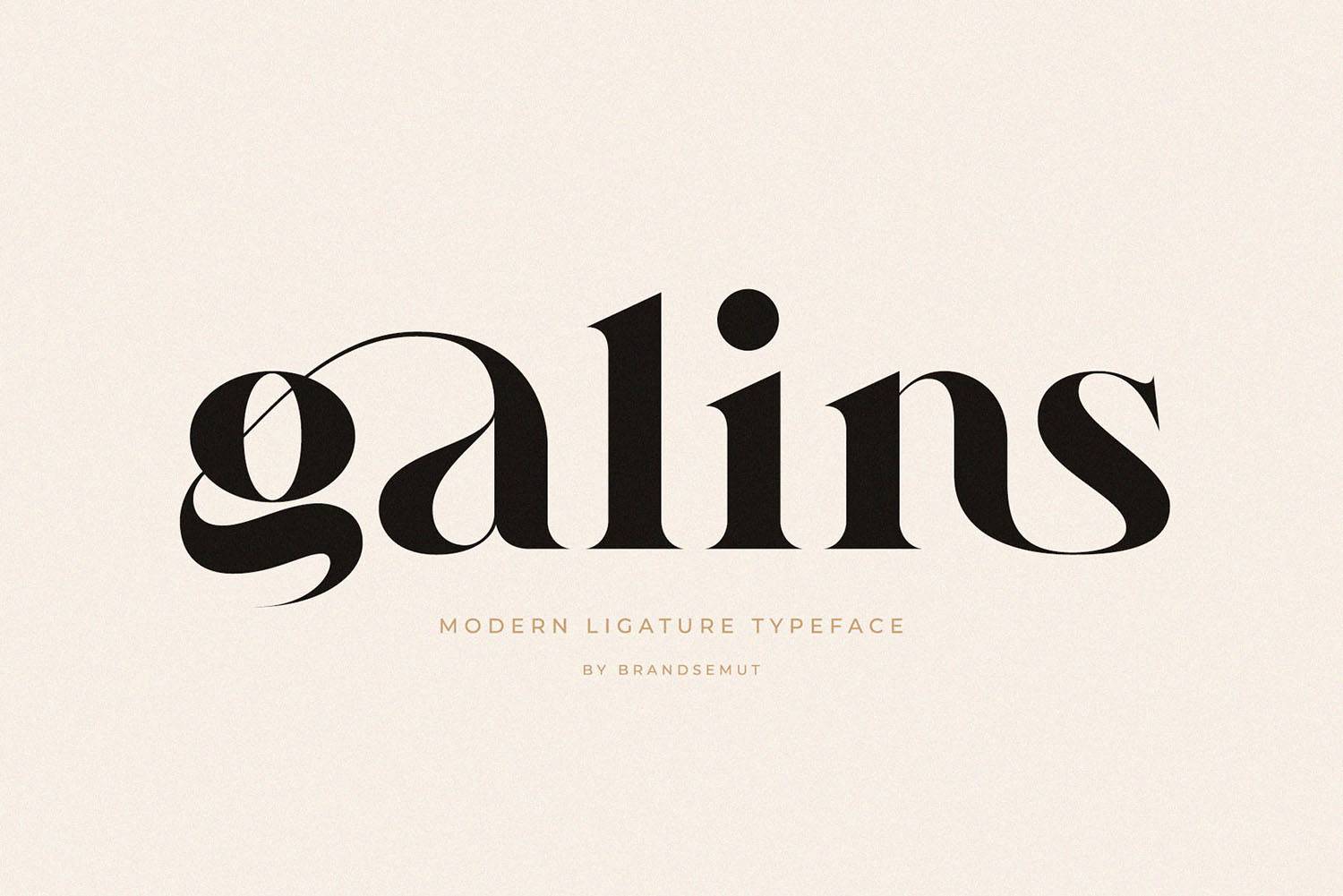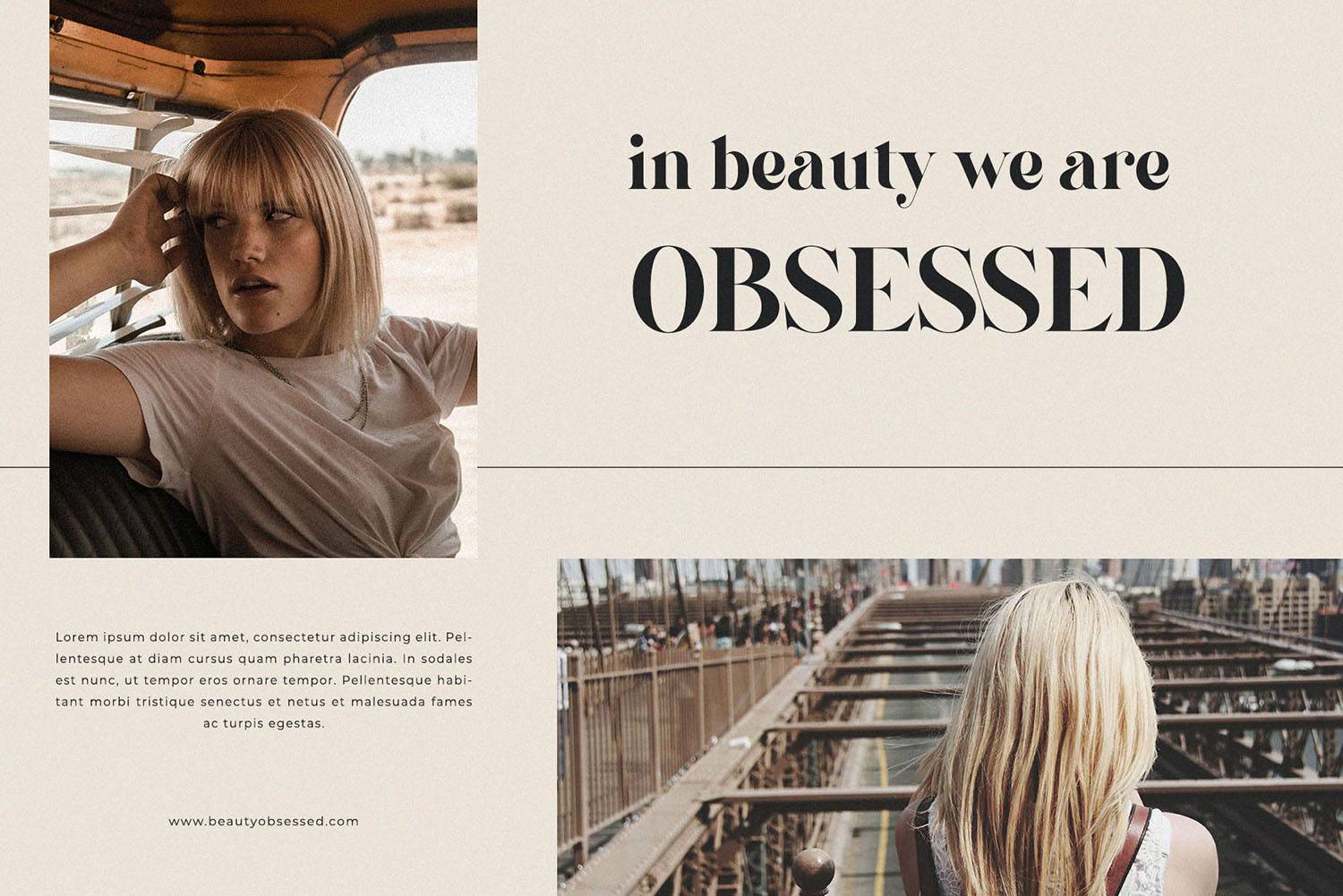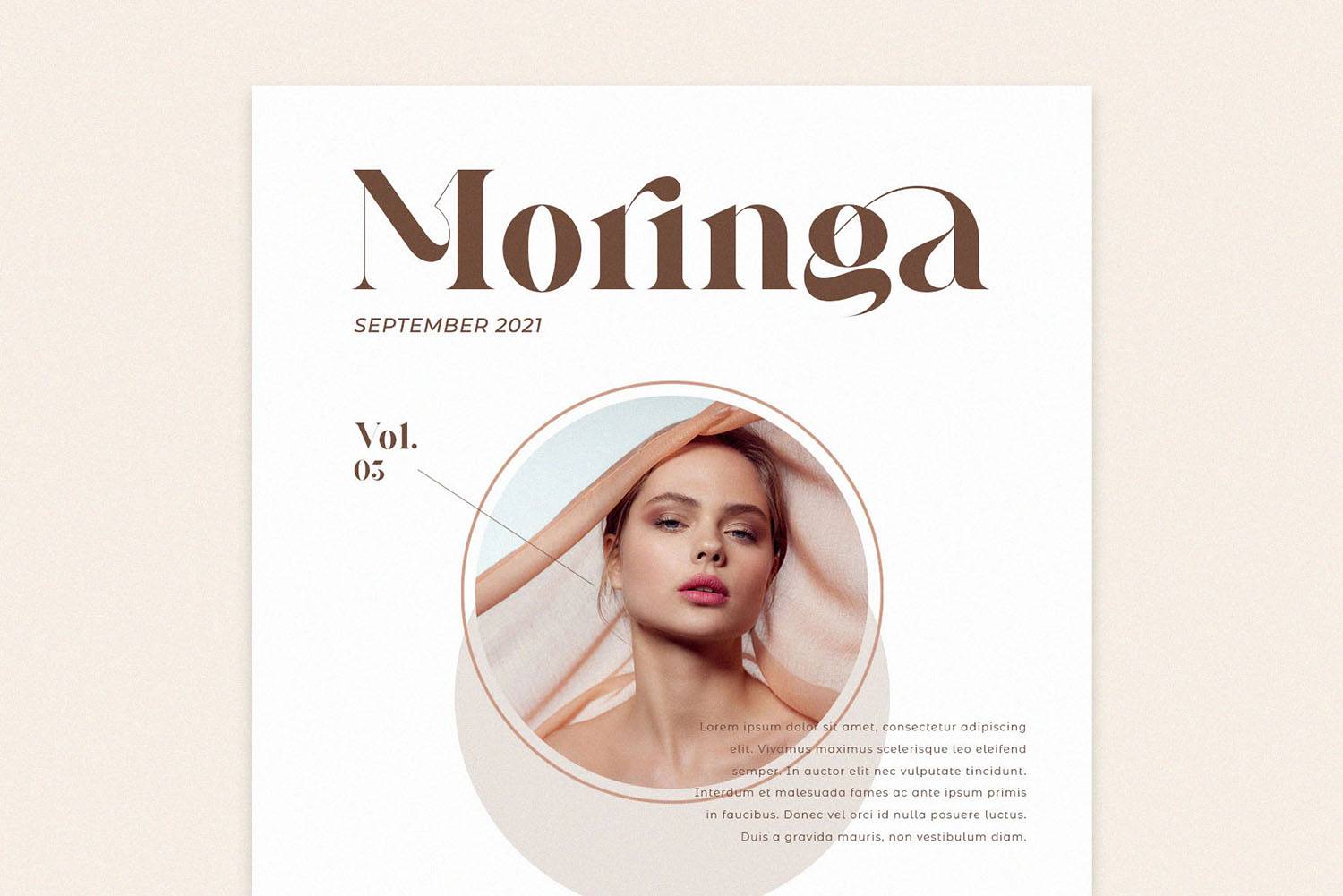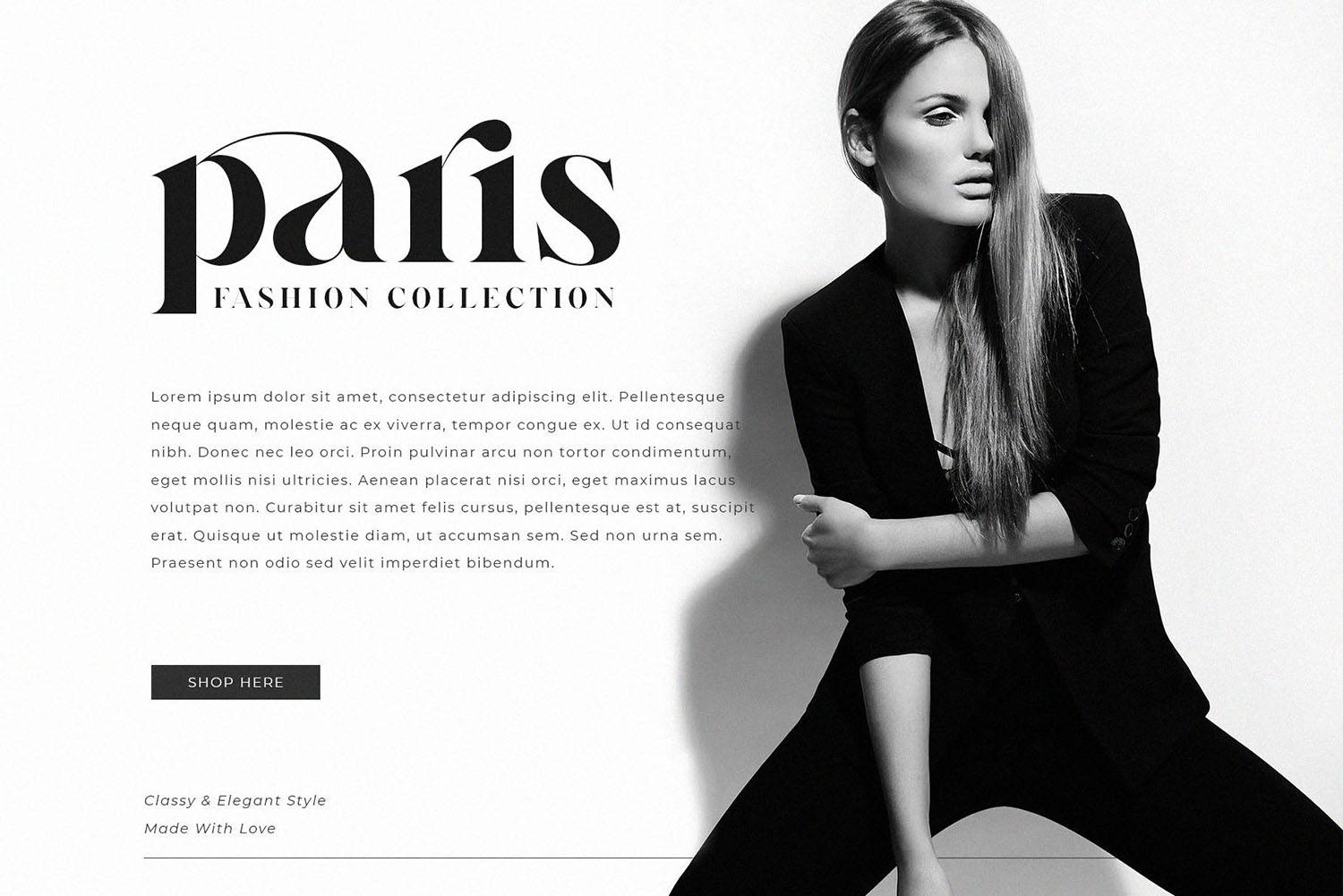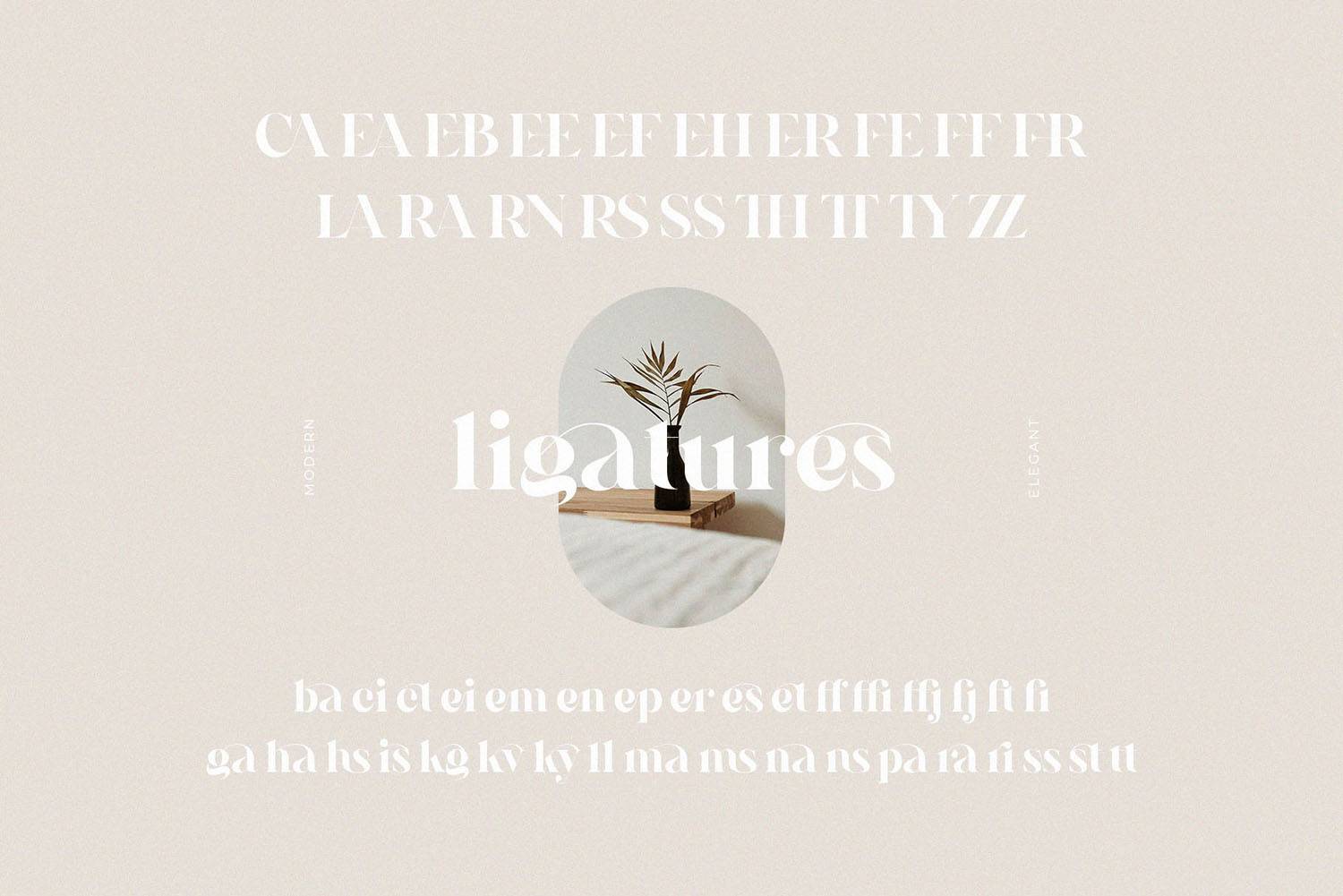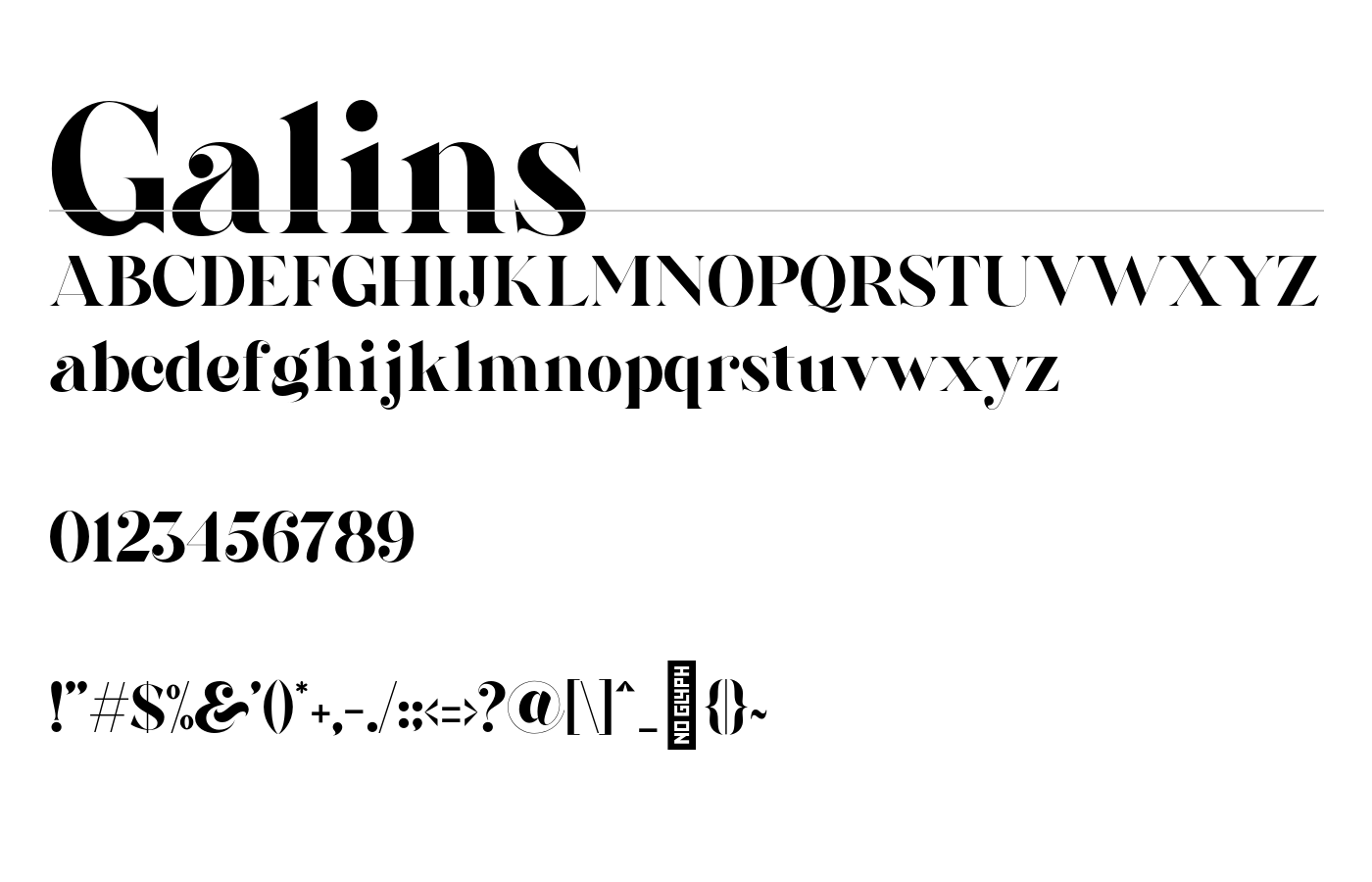
Galins is a bold serif font with strong contrast between thick and thin strokes, featuring sharp, elegant serifs that give it a classic yet striking appearance. Its high contrast and refined details make it ideal for luxury branding, editorial headlines, and sophisticated packaging where a touch of elegance and authority is desired. This font works best in large sizes, creating a memorable impression for fashion, lifestyle, and premium product designs.
| Font family | Galins Font |
| Release date | 2021-08-21 |
| Designer | Brandsemut |